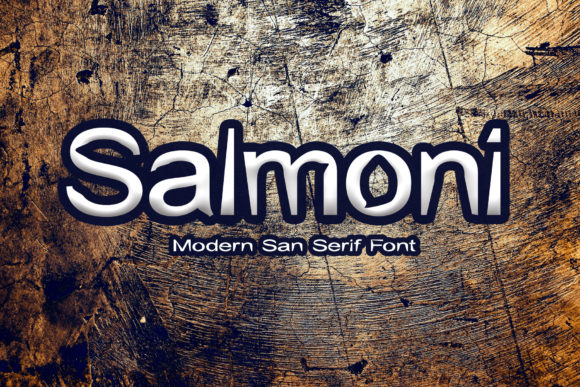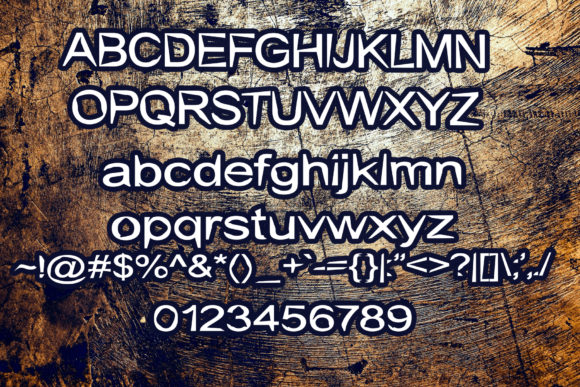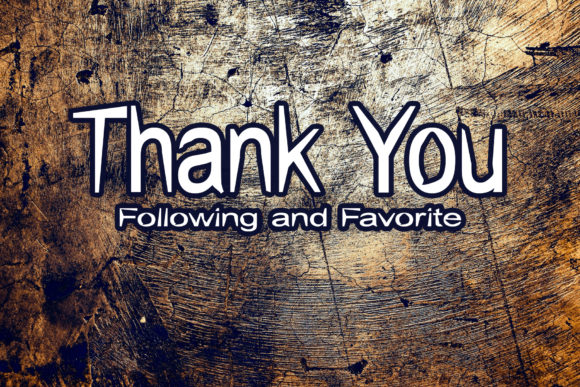
Salmoni
About Salmoni Font
Salmoni is a simple and neat display font. Bold and incredibly versatile, this font will become your top choice in no time!